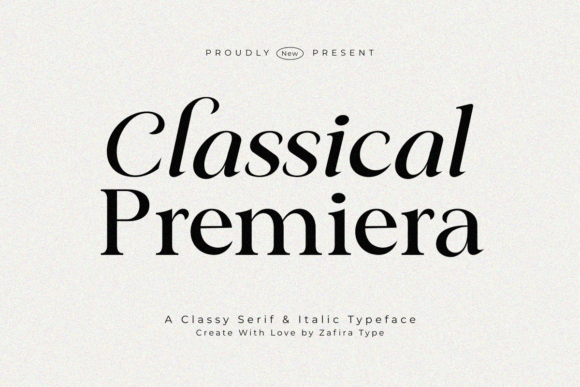
Introduction to Classical Premiera Font
Introducing Classical Premiera, a sophisticated serif font that elegantly straddles the border of tradition and creativity.
With its two distinguished styles, Regular and Italic, this font dances on the page to create a harmonious balance The Regular style impresses with its bold and perfectly balanced letterforms, illuminating the page, ideal for crafting lengthy, formal text with gravitas.
Key Features of Classical Premiera Font